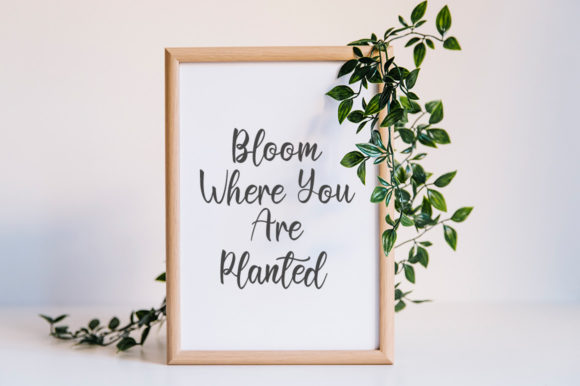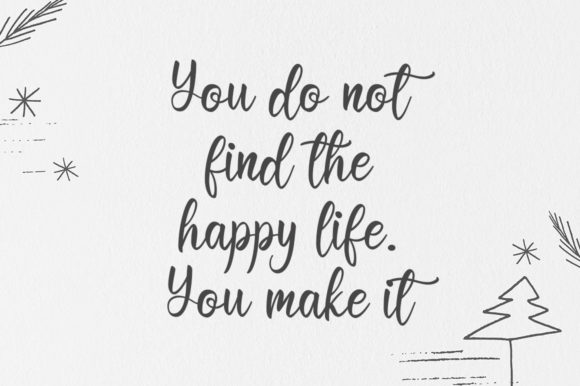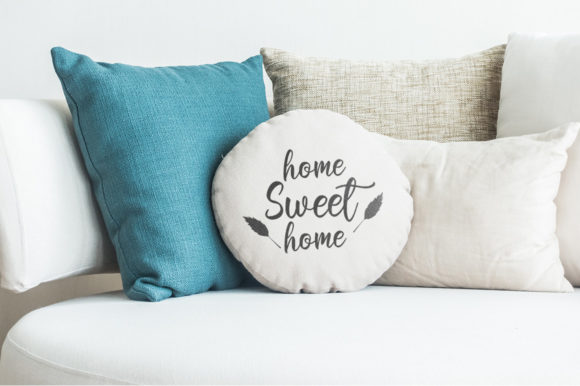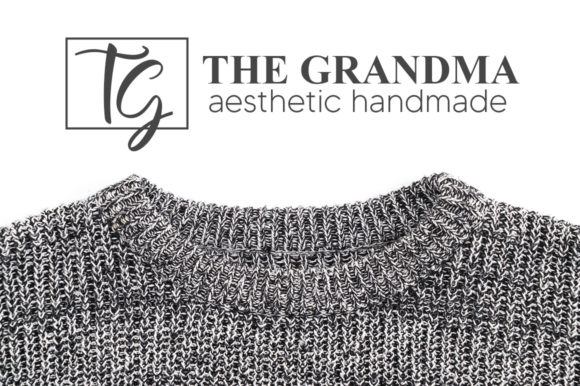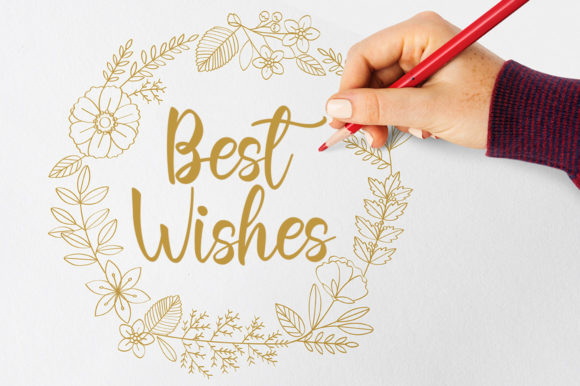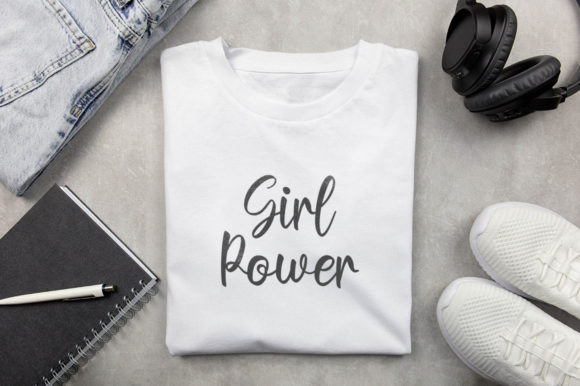
Introducing Gabriella Font: Elevate Your Designs with Elegance and Sophistication
In the world of typography, few fonts manage to convey the same level of elegance and sophistication as Gabriella. This stunning script font is a perfect blend of style and refinement, making it an ideal choice for designers and crafters looking to add a touch of luxury to their projects. Whether you’re working on wedding invitations, thank you cards, quotes, greeting cards, logos, business cards, or any other design that requires a handwritten touch, Gabriella is sure to impress.
The Characteristics of Gabriella Font
Gabriella is more than just a font – it’s an experience. Its flowing lines, delicate curves, and precise lettering come together to create a truly unique and captivating visual identity. Here are some of the key characteristics that make Gabriella stand out:
- Elegant Script Style: Gabriella boasts a beautiful, cursive script style that exudes elegance and sophistication. Its fluid lines and curves give it a dynamic, hand-written feel that’s perfect for designs that require a personal touch.
- Versatility: One of the things that makes Gabriella so popular among designers is its incredible versatility. It can be used for a wide range of projects, from formal events like weddings and galas to more casual applications like greeting cards and quotes.
- Readability: Despite its ornate and flowing design, Gabriella is surprisingly easy to read. This makes it perfect for designs that require a balance of style and substance, such as business cards and logos.
Uses of Gabriella Font
So, what can you use Gabriella for? The possibilities are endless! Here are some ideas to get you started:
- Wedding Invitations: Add a touch of romance and sophistication to your wedding invitations with Gabriella. Its elegant script style is perfect for formal wedding announcements, save-the-date cards, and thank you notes.
- Stationery and Cards: Gabriella is a great choice for greeting cards, thank you cards, and other types of stationery. Its unique and stylish design will make your cards stand out from the crowd.
- Logos and Branding: If you’re looking for a font that will help you establish a luxurious and sophisticated brand identity, Gabriella is an excellent choice. Its elegant design makes it perfect for logos, business cards, and other marketing materials.
- Quotes and Typography: Gabriella is also a great choice for typography projects, such as quote posters, inspirational quotes, and social media graphics. Its flowing lines and curves add a touch of elegance to any quote or phrase.
Why Choose Gabriella Font?
With so many fonts available, why choose Gabriella? Here are just a few reasons why Gabriella stands out from the crowd:
- Unique and Stylish: Gabriella is a truly unique and stylish font that will add a touch of elegance to any design.
- High-Quality Design: Gabriella is a high-quality font that’s been carefully designed to ensure that it looks great in any context.
In conclusion, Gabriella is a stunning script font that’s perfect for designers and crafters looking to add a touch of elegance and sophistication to their projects. Its unique and stylish design, versatility, and readability make it an excellent choice for a wide range of applications, from wedding invitations and stationery to logos and branding. Whether you’re a professional designer or a crafty DIY enthusiast, Gabriella is sure to become one of your go-to fonts.